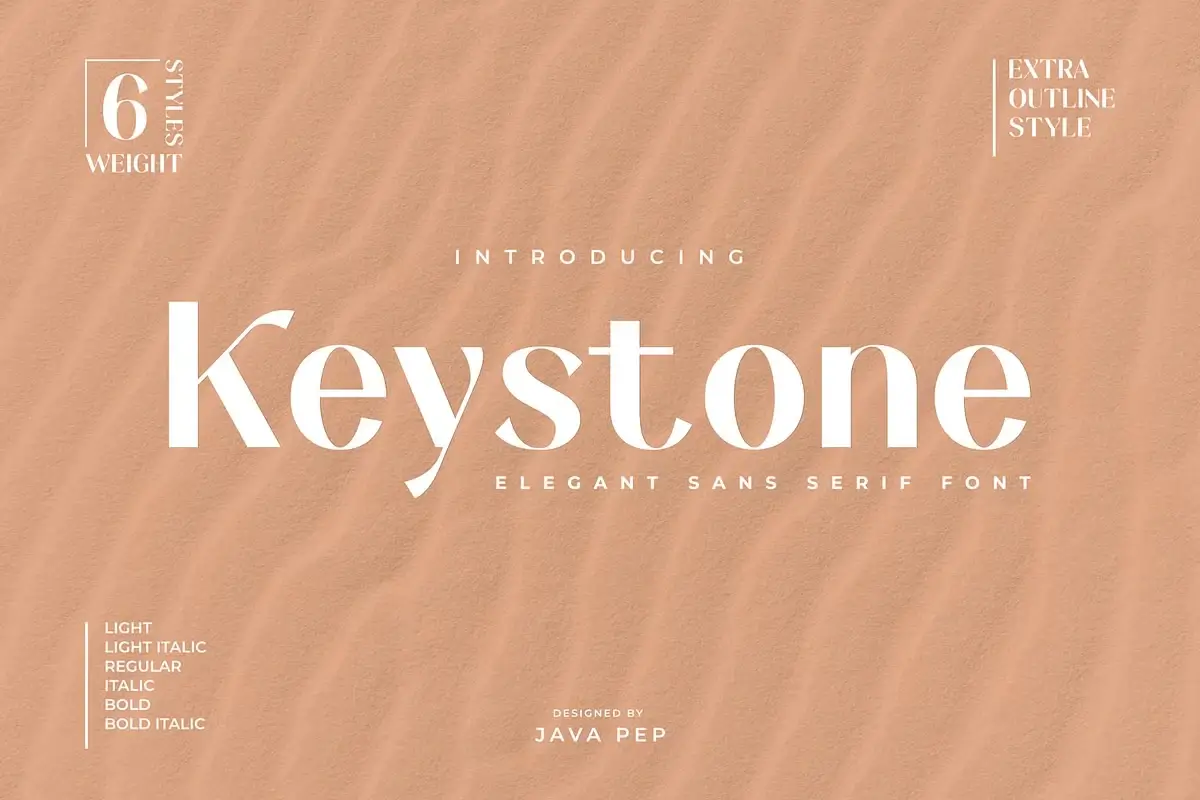
The Keystone Font Family is a versatile and elegant typeface designed to meet various creative needs. With support for over 20 languages, it ensures accessibility and usability for a global audience. This font family includes six different weight styles, along with additional outline styles, making it perfect for a wide range of design projects. Whether you need a bold statement or a delicate touch, Keystone offers flexibility to enhance your work.
Keystone is ideal for display purposes, allowing text to stand out beautifully in any composition. It works perfectly for magazine layouts, book covers, advertisements, logos, and branding projects. Additionally, its sophisticated design makes it suitable for fashion-related materials, blogs, website headers, and artistic quotes. Whether used in print or digital formats, Keystone adds a professional and stylish look to any content.
Beyond its aesthetic appeal, the Keystone Font Family is designed to be functional and adaptable. Its wide language support makes it an excellent choice for global communication, while its range of styles ensures it can complement various design aesthetics. From photography portfolios to invitation cards and posters, Keystone enhances visual storytelling with elegance and clarity.